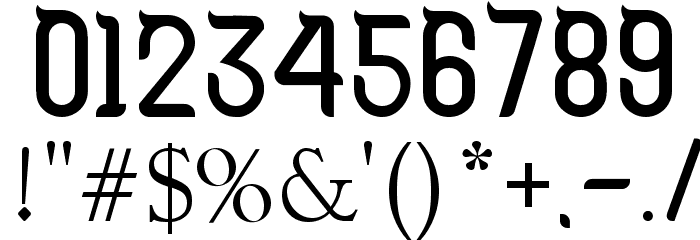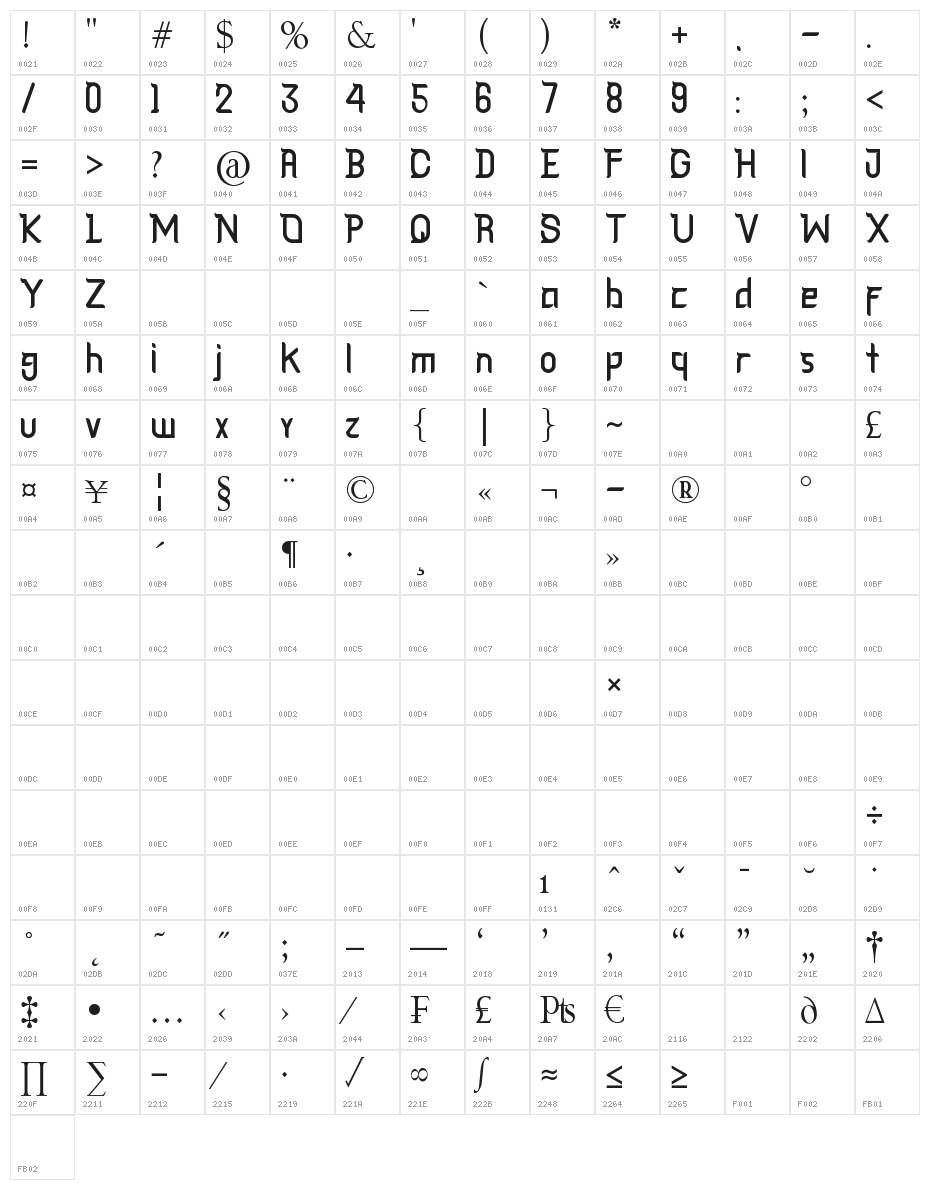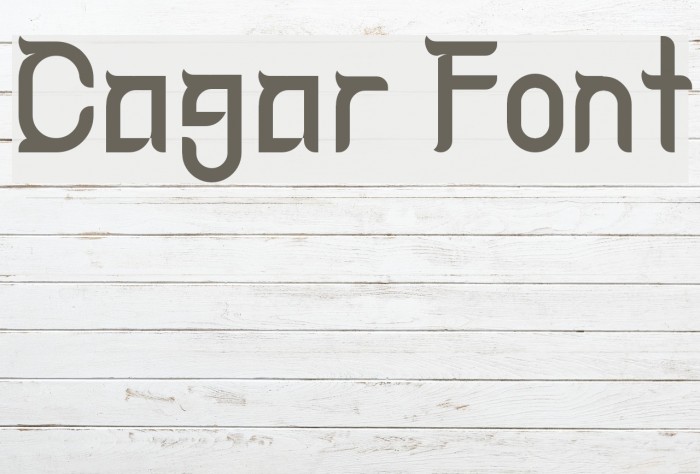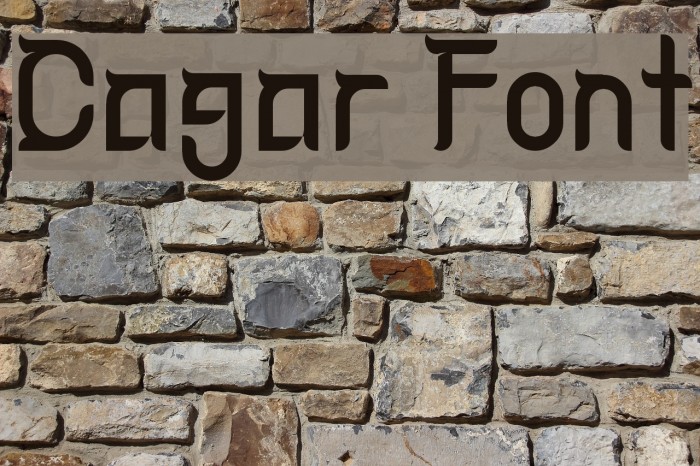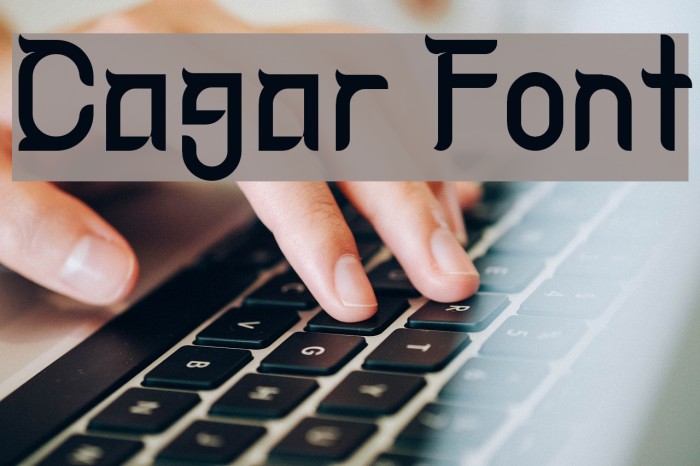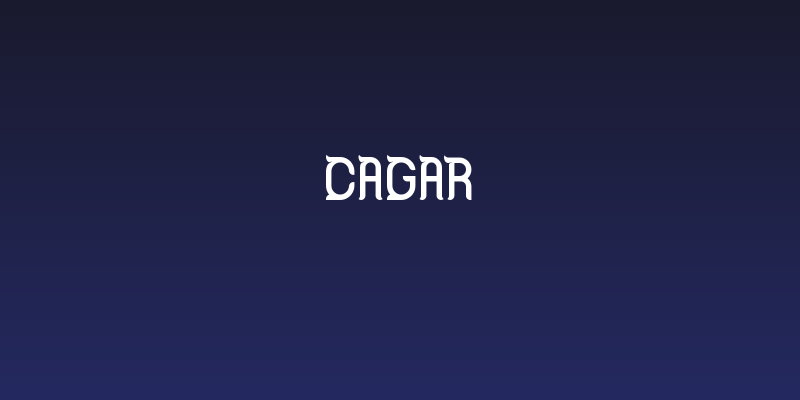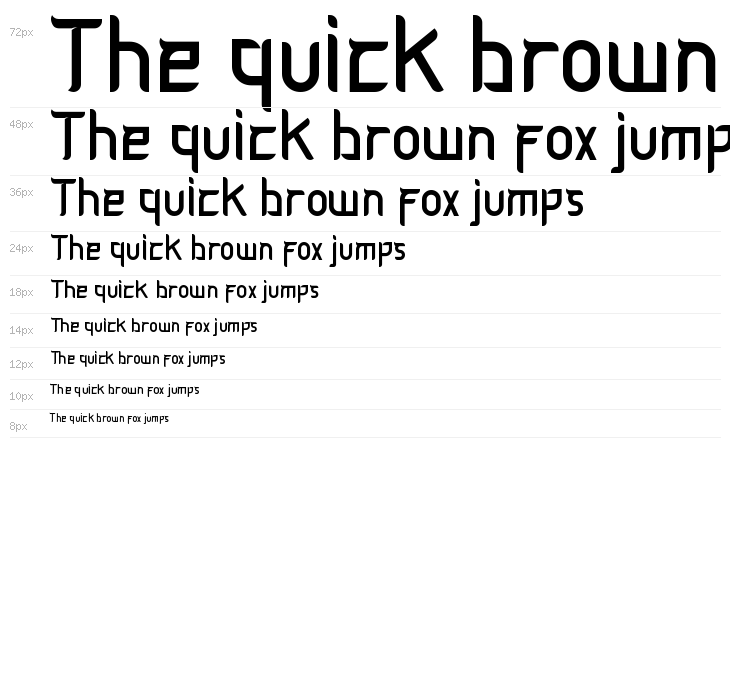
Cagar Font
Cagar Description
This font features a unique and modern design with a geometric and slightly futuristic appearance. The characters are bold and have a distinct style with sharp edges and clean lines. The uppercase letters are uniform in height, while the lowercase letters maintain a consistent baseline with some unique curves and angles. The numerals are clear and easy to read, matching the overall aesthetic of the alphabet. Special characters are well-integrated, maintaining the font's cohesive look. This font is ideal for projects that require a modern and edgy feel.
| Proposed Projects | Ideal for branding, logos, posters, and any project needing a modern, edgy look. |